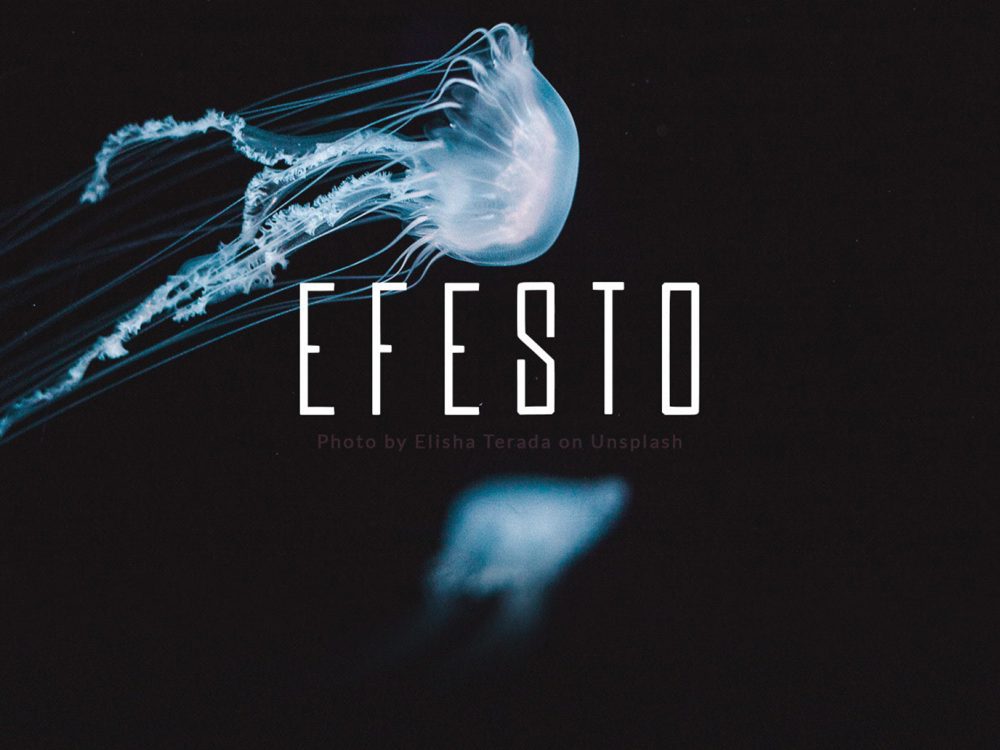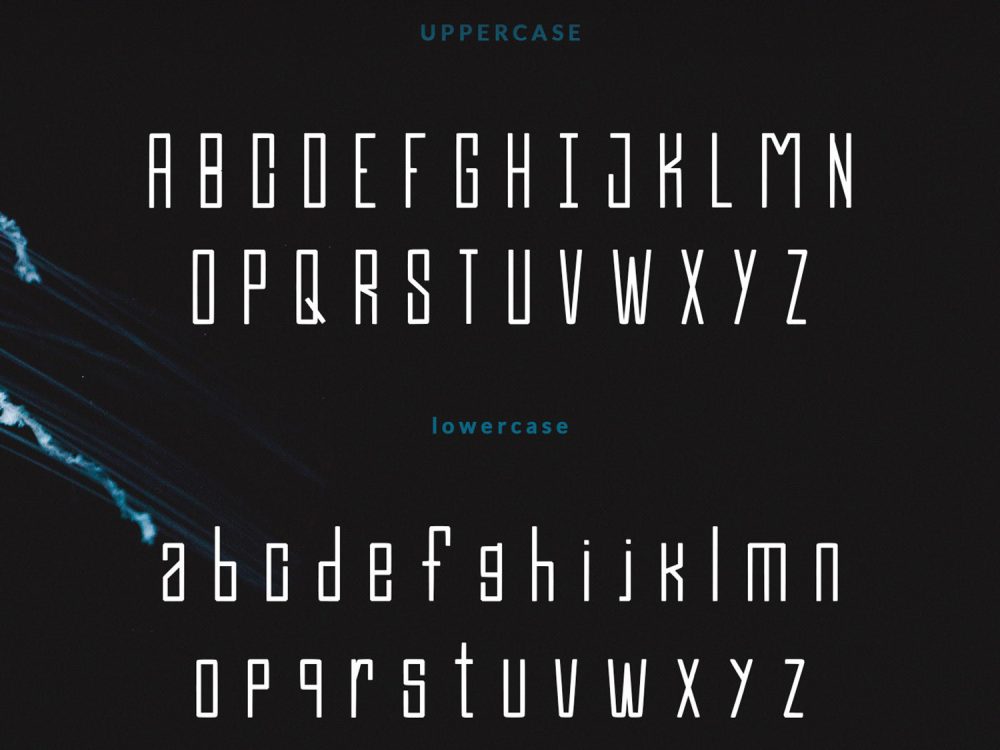
Efesto Free Font
Efesto Free Font is a beautiful unusual modern font with an elegant style and perfect for creating various design projects. You can use this font to create posters, invitations, postcards, logos, branding, flares, prints, and more. If you want to use it for commercial work please buy the full version.